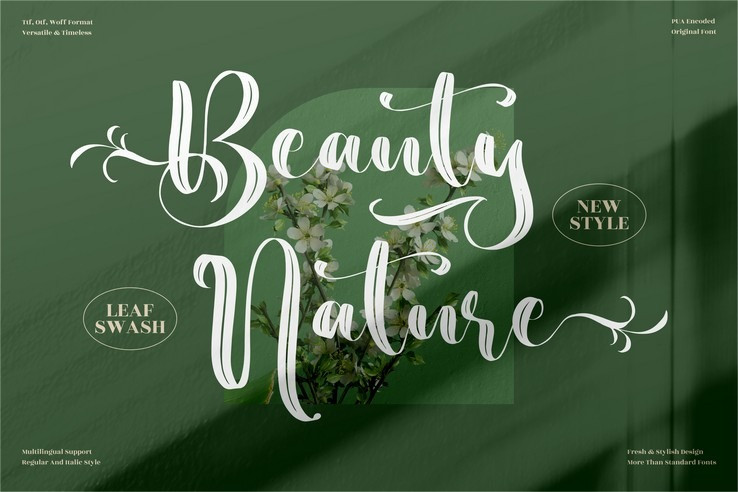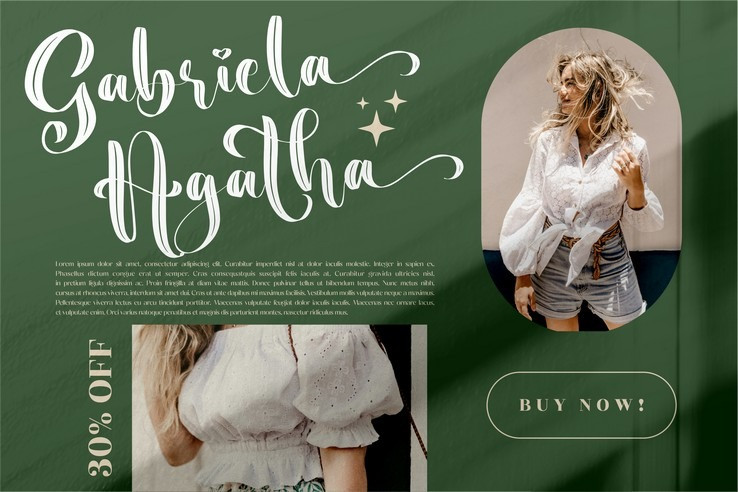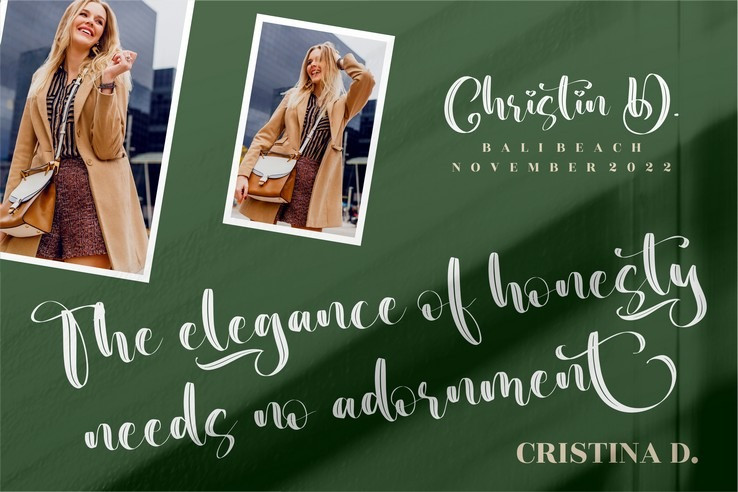
Yoghurt Black Script Font
Yoghurt Black is a sweet and friendly script font. Its natural and unique style makes it incredibly fitting to a large pool of designs. The only limit is your imagination!